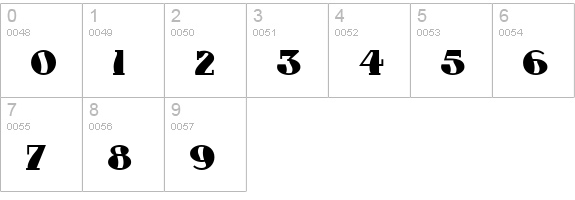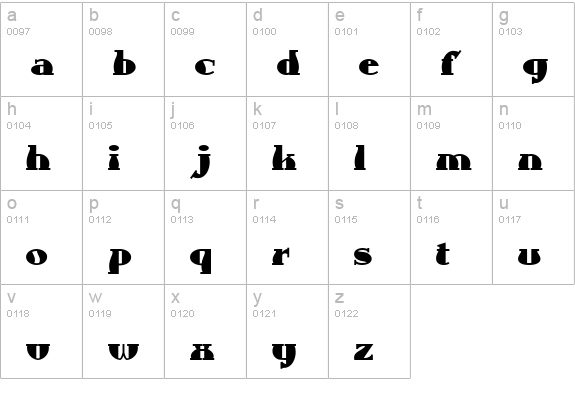
Aunt Bertha NF Font Details
Aunt Bertha NF font is a charming and elegant typeface that exudes a sense of warmth and nostalgia. With its delicate curves and timeless appeal, this font is perfect for adding a touch of sophistication to your designs. The graceful letterforms of Aunt Bertha NF font are sure to captivate your audience and leave a lasting impression. The best part? Aunt Bertha NF font is completely free to download at FontsMarket.com. This means you can elevate your projects with this beautiful font without having to spend a dime. Don't miss out on the opportunity to enhance your designs with the timeless beauty of Aunt Bertha NF font. Download it today and let your creativity shine!